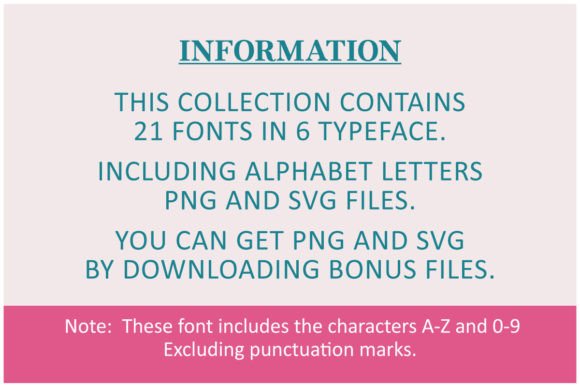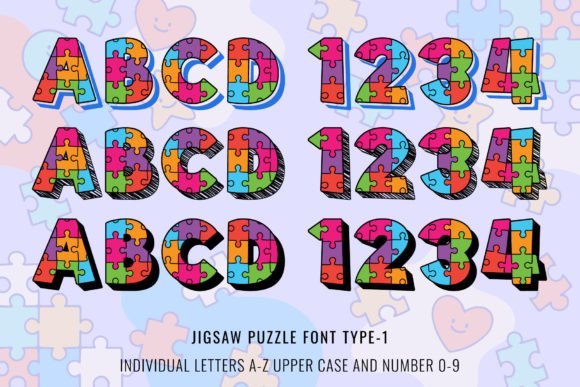
Jigsaw Puzzle Collection Font
Jigsaw Puzzle Collection Font contains 21 fonts from 6 typefaces. It comes with black, outline, and color font separated. It is the perfect font for kids’ projects and more.